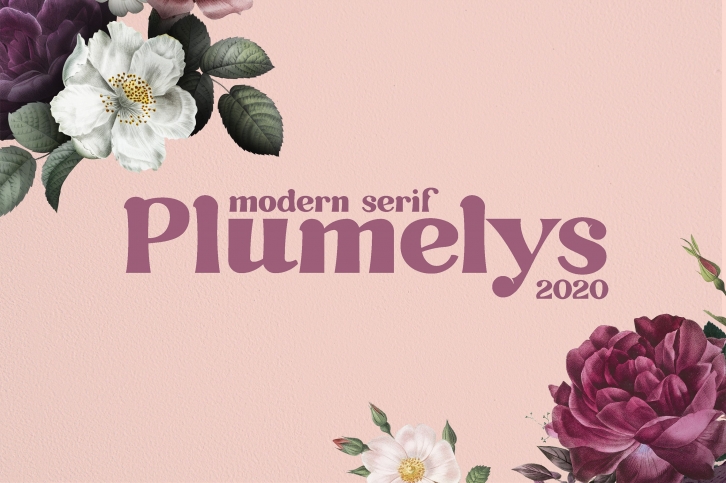
An elegant modern serif for creating type compositions in your designs. Smooth, finished curves and a recognizable look will help you decorate any idea. Especially good for headlines, signs, branding and packaging designs. Alternate glyphs will help you make each lettering unique.